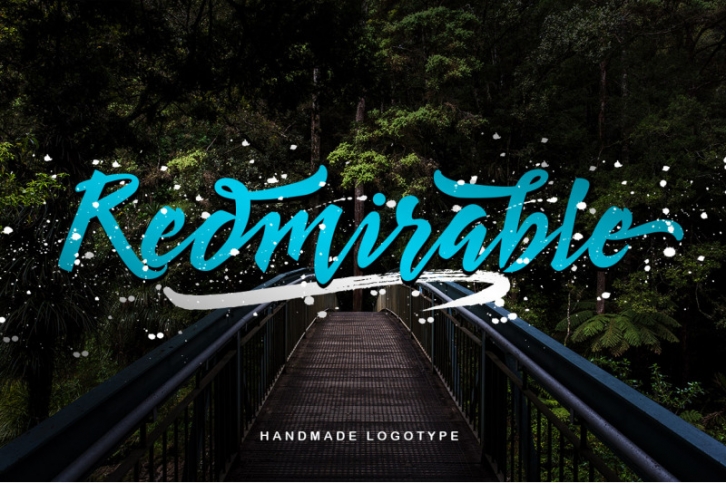
I N T R O D U C I N G
New Signature Font, a handmade font, new fresh & modern typeface with a calligraphy style. Redmirablecan used for anything from promotional material, Logotype, Branding, handwritten quotes, to product packaging, signage, labels, newsletters, posters, merchandise and branding projects.
• Basic Latin A-Z and a-z
• Alternative Stylistic
• Symbols
• PUA Encode
• Multilanguage Support